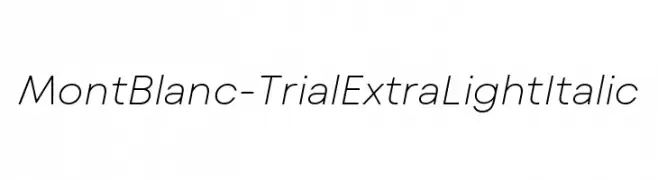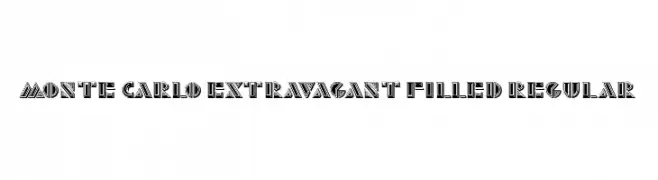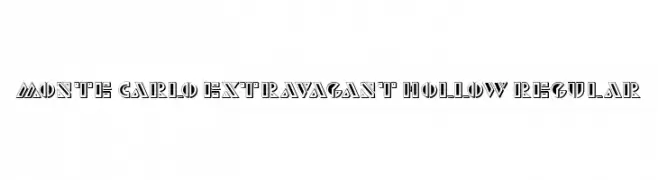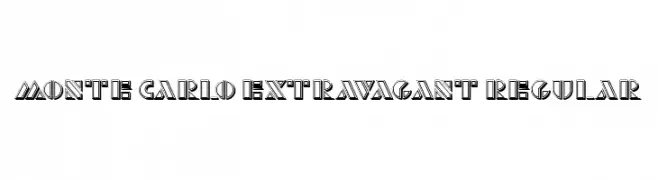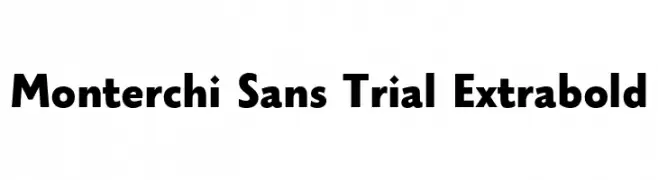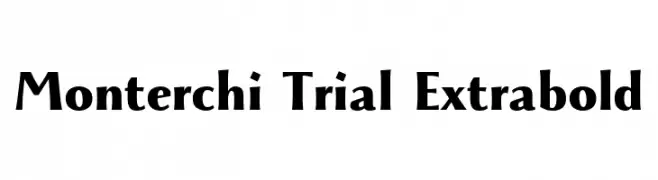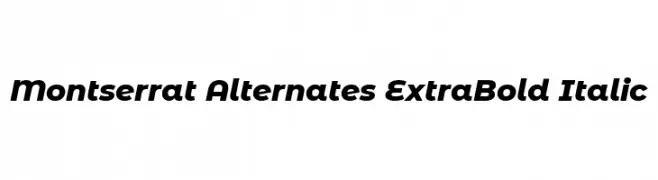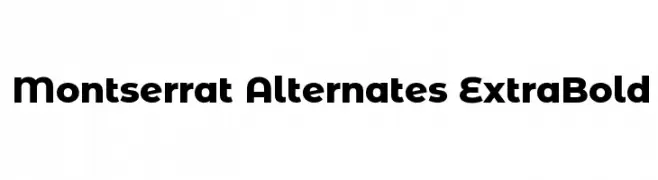
A sleek, extra light italic font with a modern and elegant design.
A clean, minimalist font with thin strokes and balanced spacing.
A bold, extravagant font with geometric shapes and intricate patterns.
A bold, hollow, and geometric font with a modern and decorative style.
A bold, geometric decorative font with striking outlined elements.
A bold, modern sans-serif font with geometric lines and unique character details.
A bold serif typeface with strong strokes and pronounced serifs, ideal for impactful headlines.
A bold, high-contrast serif font with a modern yet classic appeal.
A bold, modern sans-serif font with a geometric and clean style.
A bold, italicized typeface with a modern, geometric design.